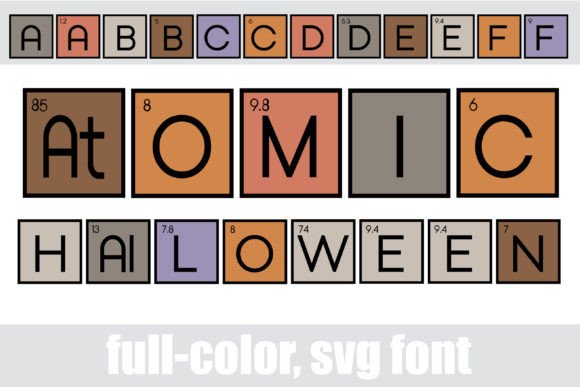
Introducing the Atomic Halloween Font, a captivating and colorful font that is sure to elevate your designs to new heights! Created by Illustration Ink, this font is the perfect choice for those seeking the best font for science figures.
This unique font features the periodic table of elements in a Halloween color palette, adding a touch of spookiness to your projects. The uppercase letters do not include atomic numbers, while the lowercase letters do, creating a playful and eye-catching design.
The benefits of using full-color SVG fonts are endless. Not only are they versatile, suitable for various projects including logos, branding, web design, and print, but they are also scalable. This means that no matter the size of your project, the Atomic Halloween Font will maintain its high quality and resolution.
Adding a touch of personality to your designs has never been easier. With a wide range of colors and styles to choose from, you can create anything from simple text logos to intricate illustrations. The Atomic Halloween Font allows you to unleash your creativity and make a lasting impression.